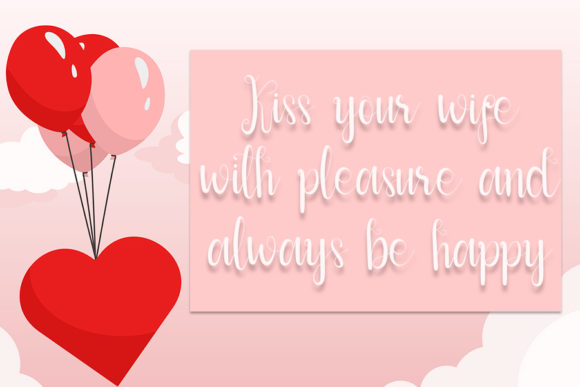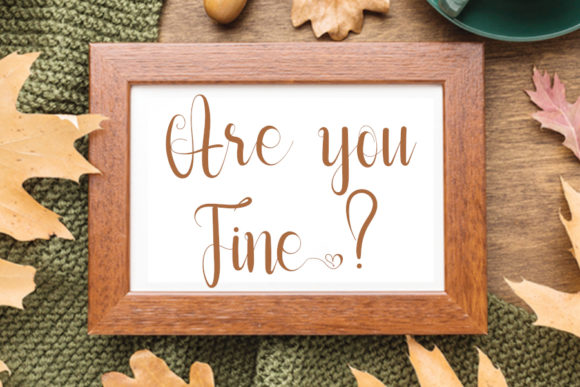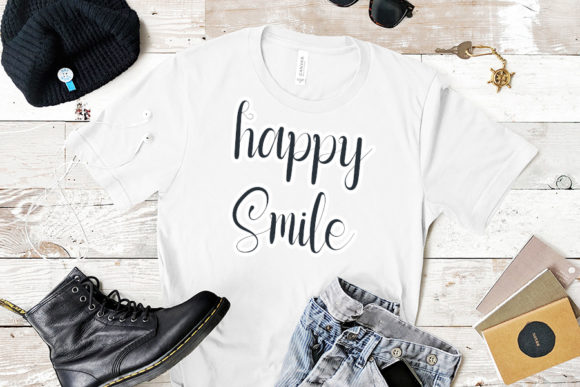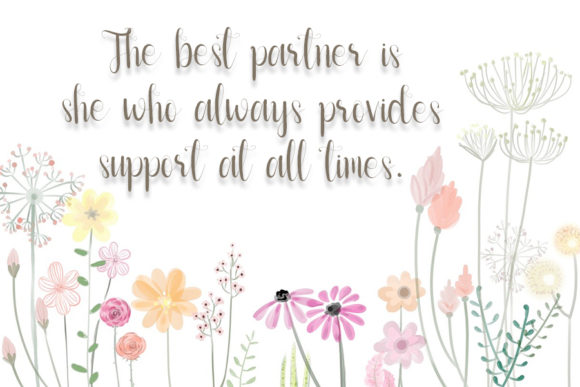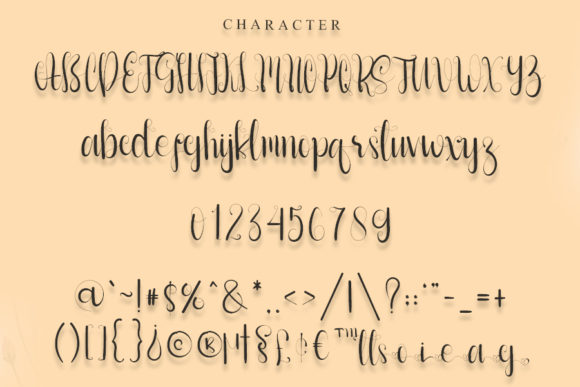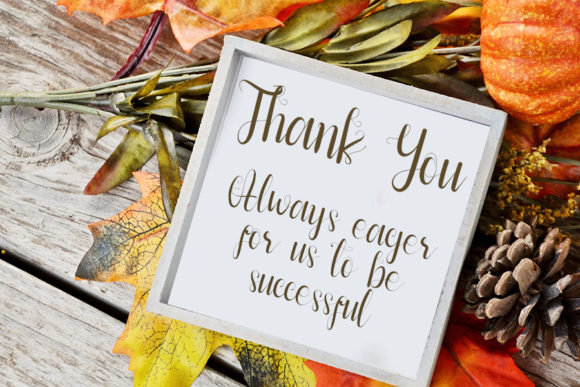
Introduction to Ending Valentines Font
Do you remember that moment when you stumbled upon the perfect font for your creative project, and suddenly, everything fell into place? The excitement, the thrill, and the satisfaction of bringing your idea to life – it’s a feeling that’s hard to match. For designers, finding the right font can be the game-changer that elevates their work from good to great. And that’s exactly what the Ending Valentines Font promises to deliver.
This sweet and flexible handwritten font is not just a pretty face; it’s a versatile design resource that can add a touch of warmth and romance to any project. With its high-quality design and endless variations, the Ending Valentines Font is a valuable addition to any designer’s toolkit. Whether you’re working on a digital design project or need a font for your next print design, this font is sure to impress.
Key Features of Ending Valentines Font
- Unique, cursive script font with a distressed, hand-painted feel, perfect for adding a touch of romance to your creative project.
- Designed to be versatile, with a range of styles and ligatures to create unique and intricate text arrangements.
- Perfect for Valentine’s Day-themed projects, as well as general romantic and whimsical designs.
Honest Review: Ending Valentines Font
I recently had the chance to try out the Ending Valentines Font, and I must say it’s a delightful addition to any creative project. The font’s elegant, cursive design is perfect for adding a touch of romance to your work. ✨
One limitation I did notice is that the font may not be suitable for all types of projects. The cursive design can be a bit overwhelming if used excessively, so be sure to use it sparingly. ⚠️
Ending Valentines Font is a high-quality design resource perfect for creative projects, such as Valentine’s Day cards, social media posts, and advertising materials. You can use it to create eye-catching graphics and designs with a transparent background.